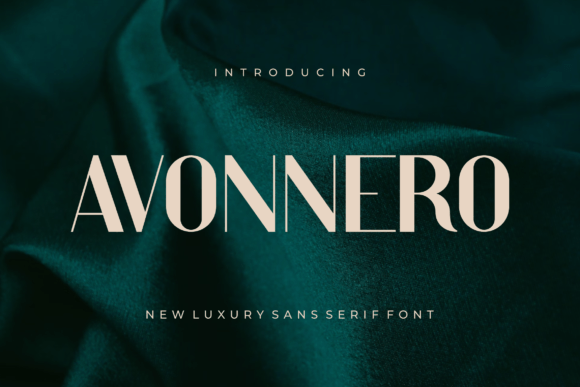
The Perfect Font for Making a Statement
Imagine you’re staring at a blank page, a blank canvas waiting for your creative touch. You’re working on a high-end branding project, and you need a font that exudes luxury and sophistication. The right font can make all the difference, elevating your design from ordinary to extraordinary.
That’s where the Avonnero Font comes in – a modern luxury font designed to make a statement. This sleek sans serif typeface is perfect for elegant designs, from high-end branding and magazines to sleek logos. Its clean and stylish letters are sure to stand out, making any text shine. For designers, the Avonnero Font is a valuable asset, offering a unique touch that sets their designs apart from the rest.
Avonnero Font Key Features
- Font Family: Avonnero Font is a sans-serif typeface designed for modern typography.
- Unique Characteristics: Avonnero Font features a clean and minimalist design, with a unique blend of geometric and organic elements, making it ideal for corporate branding and modern designs.
Avonnero Font Review
I recently had the chance to dive into the Avonnero Font, and I must say it’s a mixed bag for me. Let’s start with the good stuff.
- ✨ The font’s unique aesthetic is undeniably eye-catching. It’s perfect for making a statement and grabbing attention.
- ✨ Avonnero Font has a wide range of characters, making it suitable for various design projects, from logos to body text.
- ✨ The font’s open-source nature makes it easily accessible to designers, and the community-driven development ensures regular updates and improvements.
However, there are some limitations to consider.
- ⚠️ The font’s bold weight can sometimes appear too chunky or overwhelming, especially for smaller text sizes.
- ⚠️ Some characters might not be suitable for certain design styles or industries, such as financial or technical contexts.
Overall, I’d say Avonnero Font is a solid choice for designers looking for a unique and attention-grabbing font. While it may not be the best fit for every project, its strengths make it a great addition to any designer’s toolkit.
Tips for Getting the Most Out of Avonnero Font
Use Avonnero Font for creative and artistic projects, such as graphic design, typography, and branding.
Pair Avonnero Font with bold and contrasting colors to make it stand out.
Experiment with different font sizes and styles to achieve unique visual effects.
Avonnero Font is ideal for:
Graphic design projects, such as logos, posters, and business cards.
Typography projects, such as typefaces, fonts, and font combinations.
Branding projects, such as company identities, product packaging, and marketing
Alternatives to Avonnero Font
Pacifico is a beautiful, elegant script font that is perfect for creating a luxurious and sophisticated look. It’s ideal for branding, logos, and packaging designs. When to use: For high-end fashion brands, luxury goods, and premium services.
Comparison to Avonnero Font: Pacifico has a more refined and sophisticated feel compared to Avonnero Font, which has a more rustic and vintage vibe. Pacifico is better suited for formal and elegant designs, while Avonnero Font is more suitable for casual and laid-back designs.
Great Vibes is a modern, elegant script font that is perfect for creating a stylish and sophisticated look. It’s ideal for branding, logos, and advertising designs. When to use: For fashion brands, beauty products, and lifestyle services.
Comparison to Avonnero Font: Great Vibes has a more modern and sleek feel compared to Avonnero Font, which has a more vintage and rustic vibe. Great Vibes is better suited for trendy and fashion-forward designs, while Avonnero Font is more suitable for classic and timeless designs.